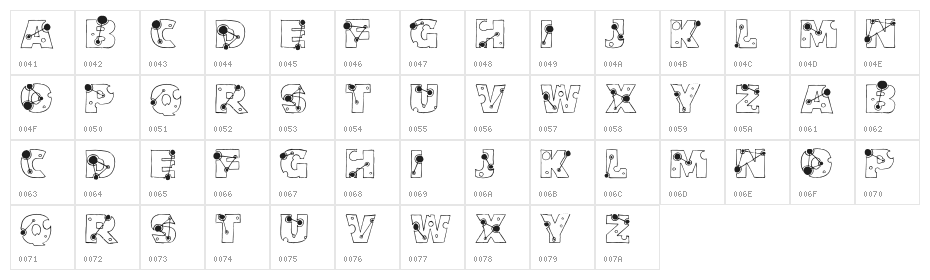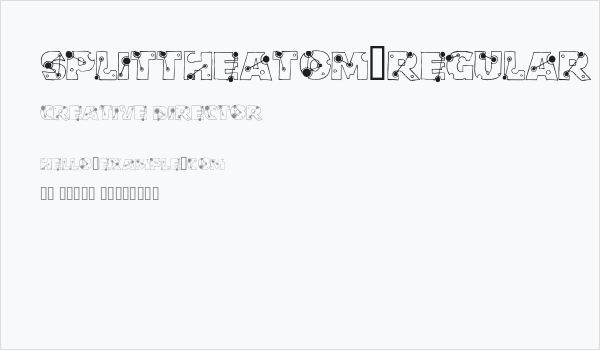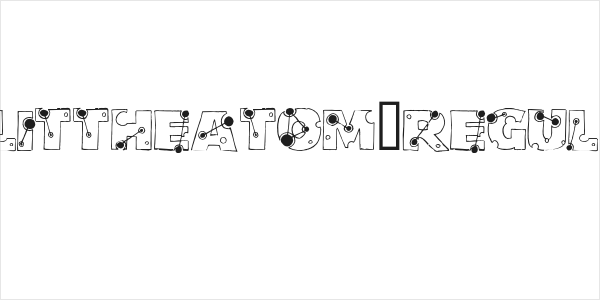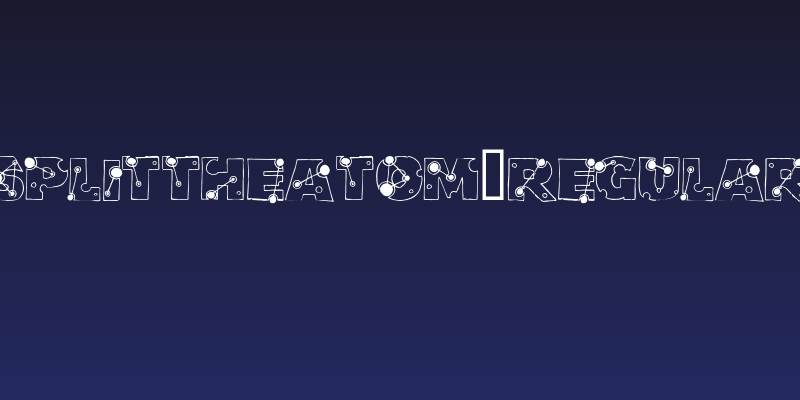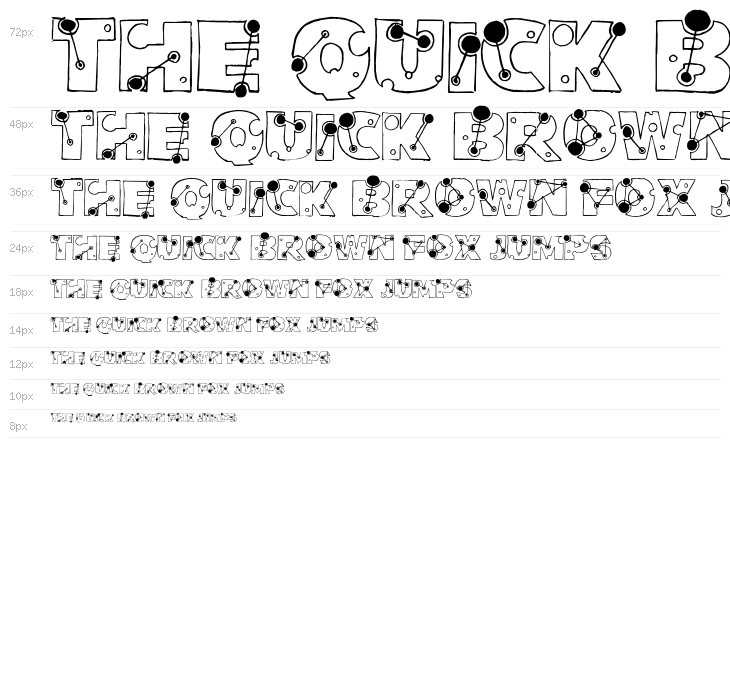
SplittheAtom-Regular Font
SplittheAtom-Regular Description
This font features a unique and creative design that incorporates atomic and molecular motifs within each character. The letters are bold and structured, with various circular and dot elements that suggest a scientific or futuristic theme. The design is highly decorative, making it stand out for attention-grabbing purposes. The uppercase letters are consistent in style, with each character having distinct atomic elements that vary in size and placement. This font lacks lowercase letters and numbers, focusing solely on uppercase characters and special symbols.
| Overall Style | Futuristic, Scientific, Decorative |
| Proposed Projects | Ideal for science-themed posters, educational materials, or branding that requires a futuristic or innovative appearance. |